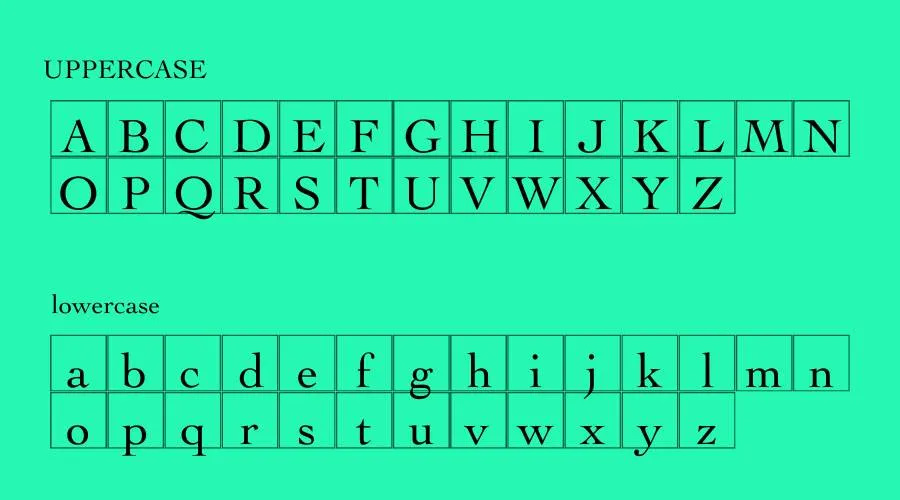
About Cochin Font
Cochin Font embodies typographic excellence through its masterful combination of organic forms and brand presence. Created for legal documents, this typeface delivers exceptional distinctiveness and brand power across all applications. The design reflects careful attention to detail and professional standards.
Advanced capabilities include distinctive flared stems and versatile oldstyle figures, giving designers creative control. When used in book chapters, Cochin Font exhibits remarkable small text rendering. The harmonious balance between aperture size and market positioning sets this typeface apart.